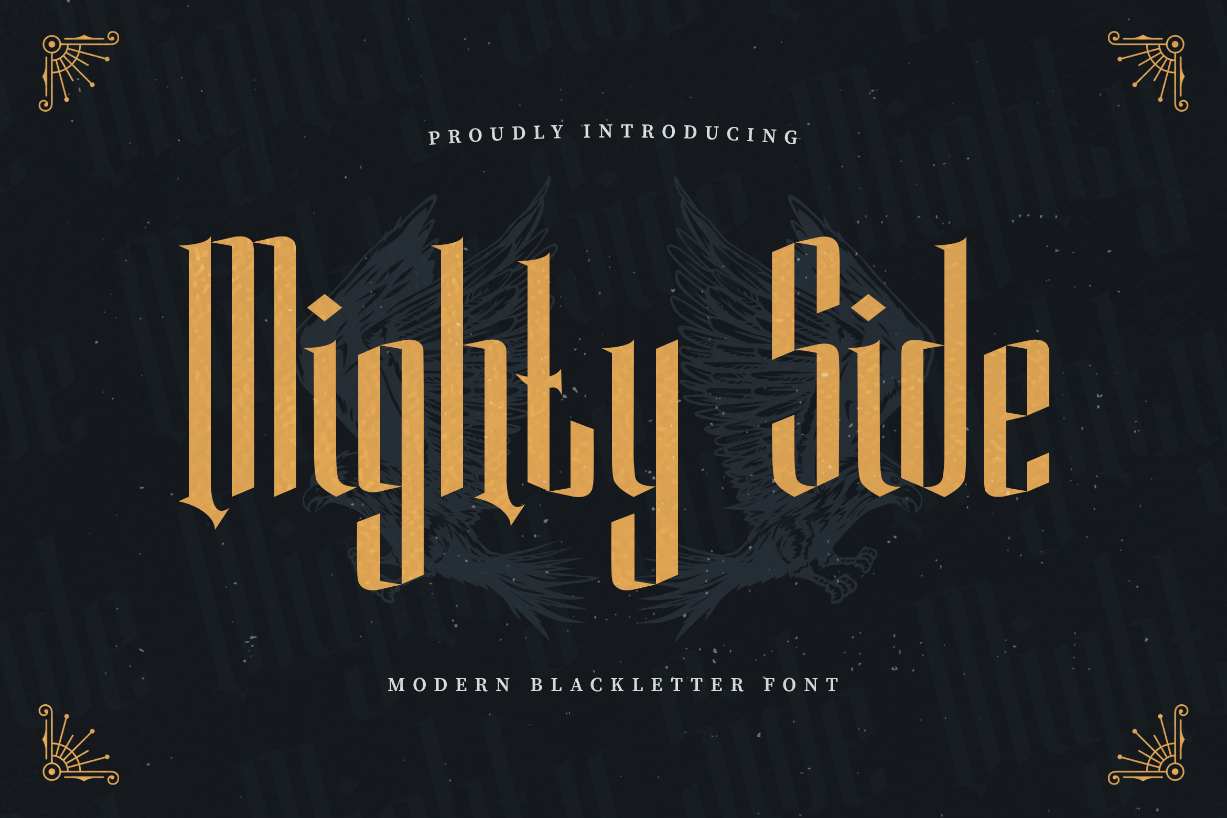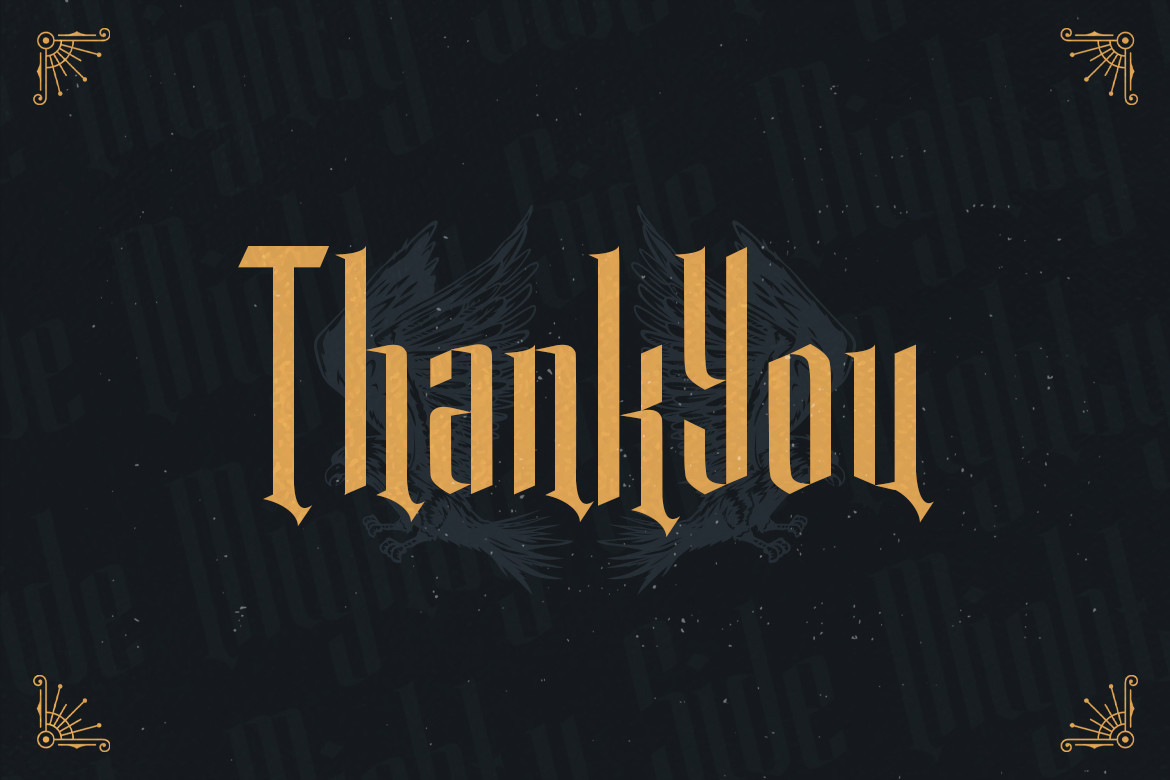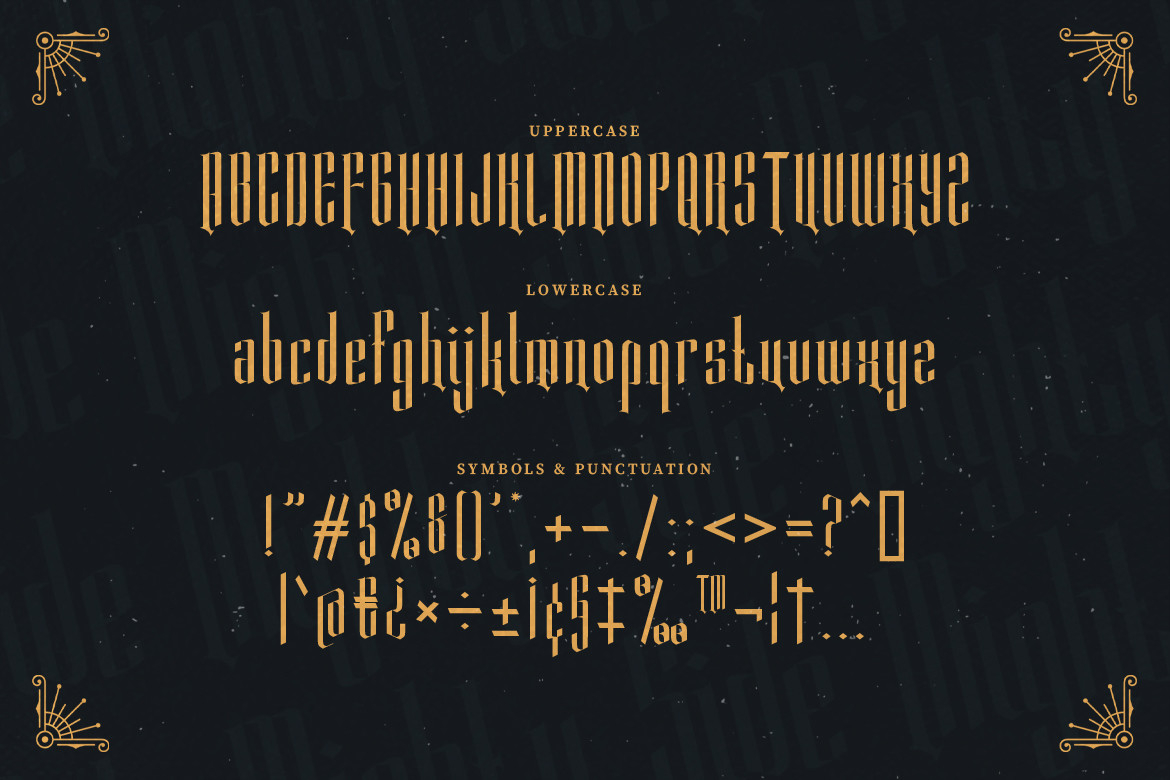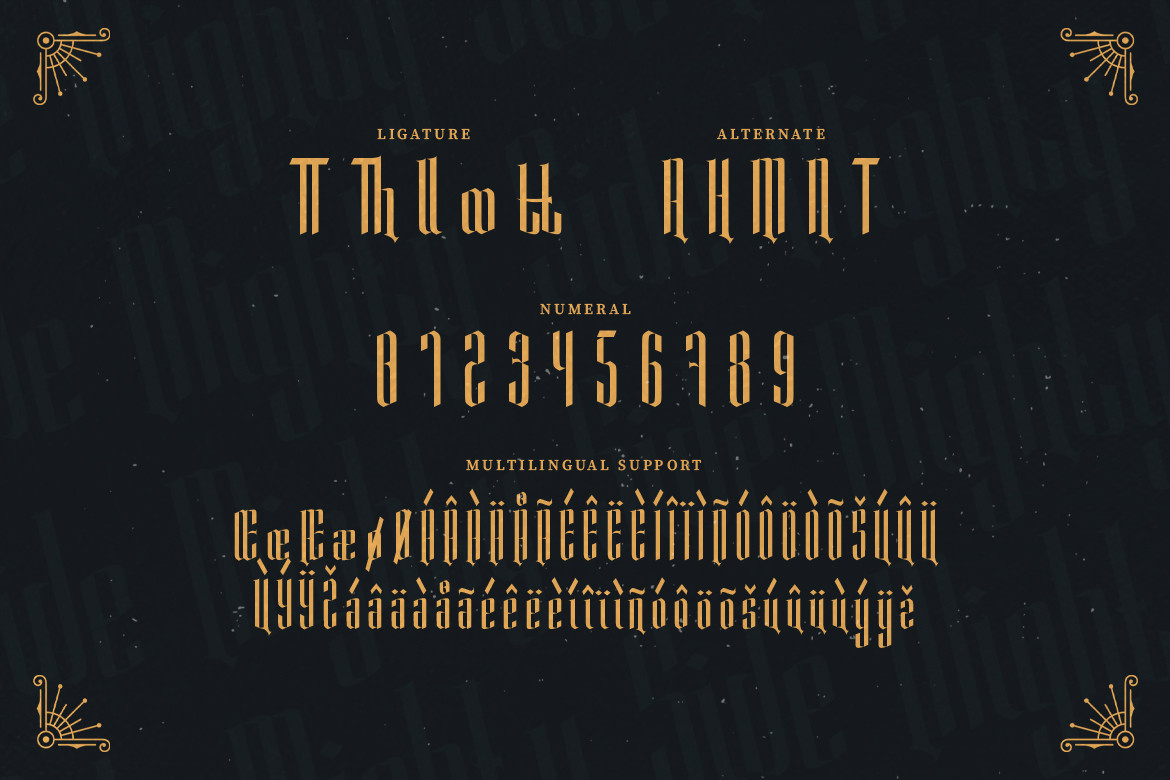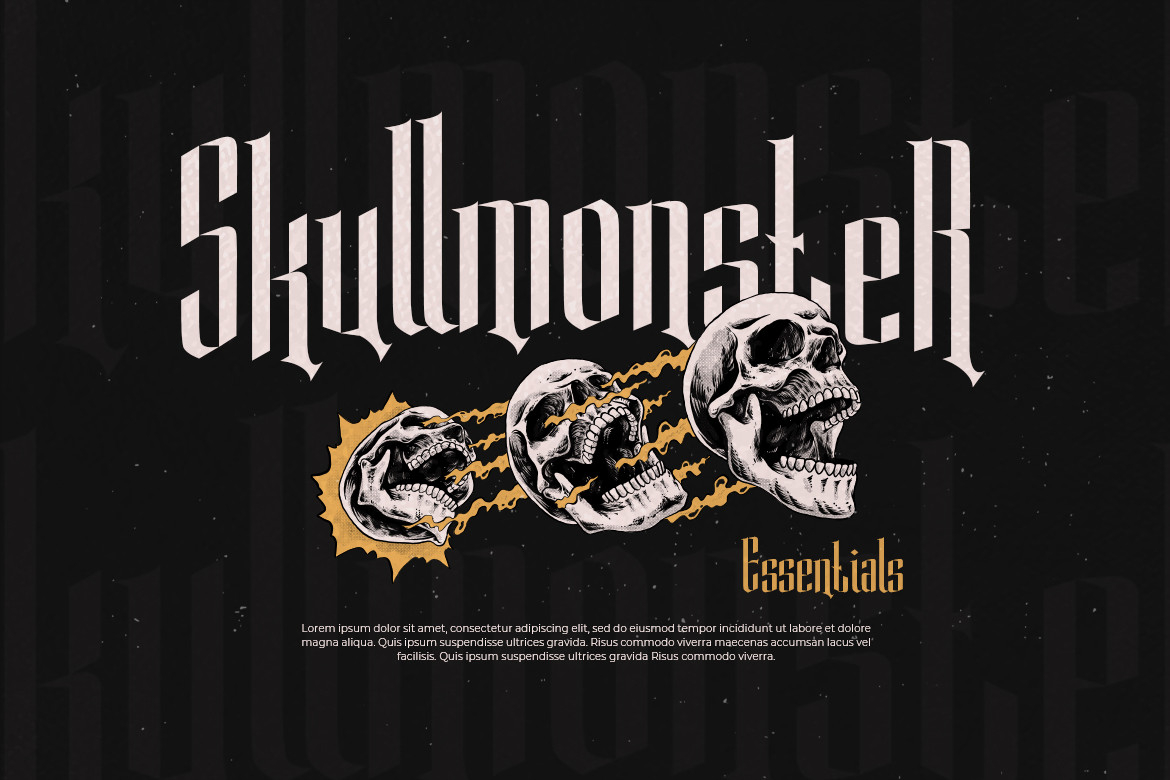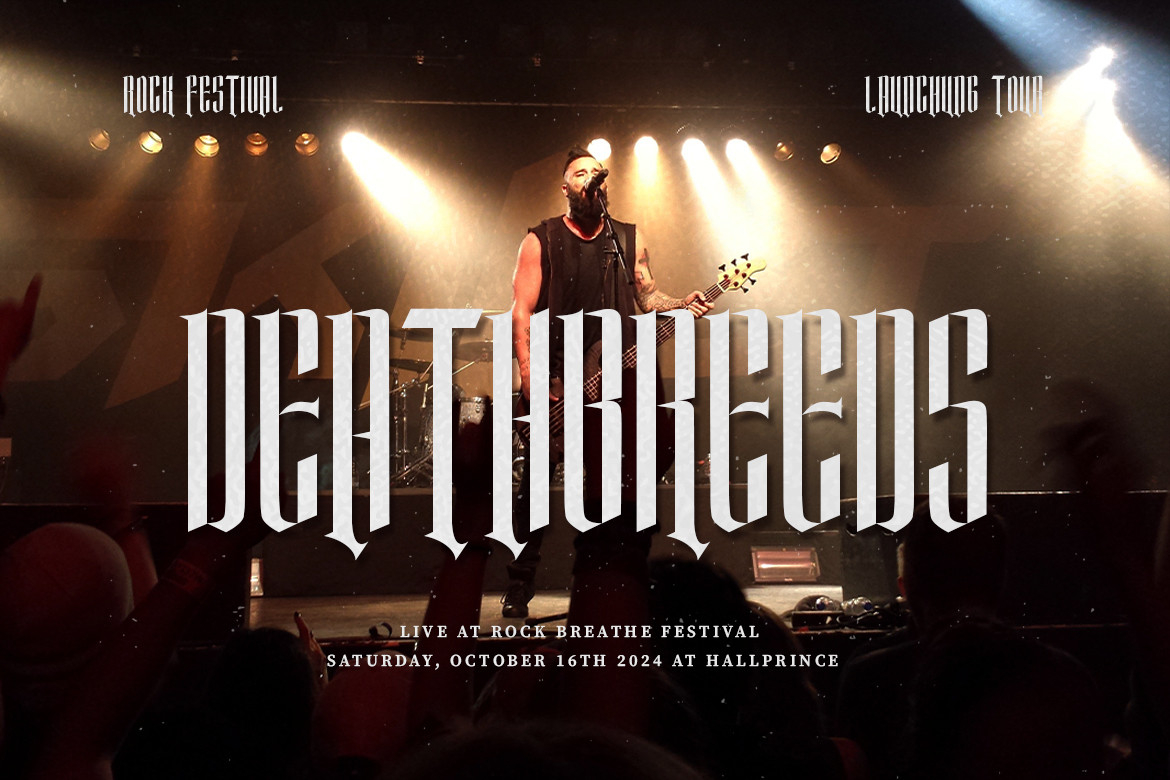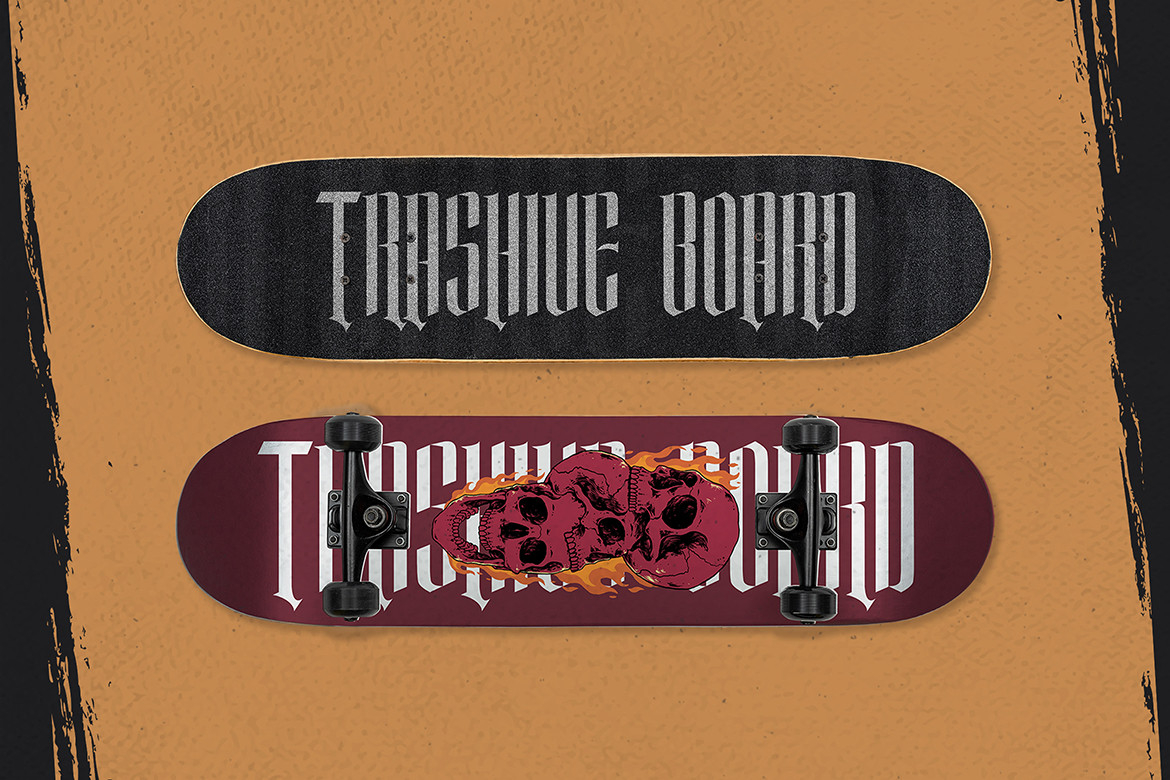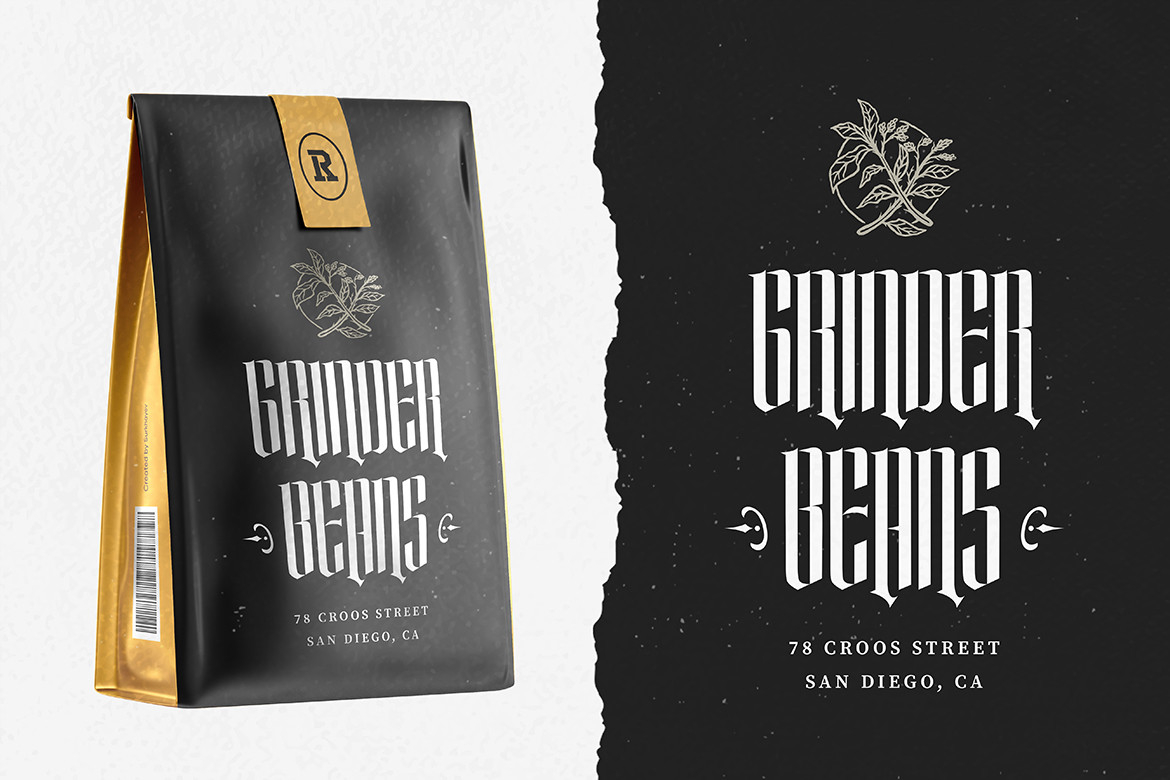
Mighty Side Font
About Mighty Side Font
Experience the power and elegance of “Mighty Side” – a modern black letter font that merges tradition with contemporary design.
With its strong and distinctive letterforms, “Mighty Side” commands attention and exudes confidence. Each character strikes a perfect balance between the rich history of Blackletter and a sleek, modern aesthetic, making it a versatile choice for branding, headlines, packaging, and more.
“Mighty Side” stands as a testament to the enduring appeal of Blackletter, offering a fresh take on a classic style. Its bold presence and sharp angles make a statement in any design, infusing projects with a touch of sophistication and strength.